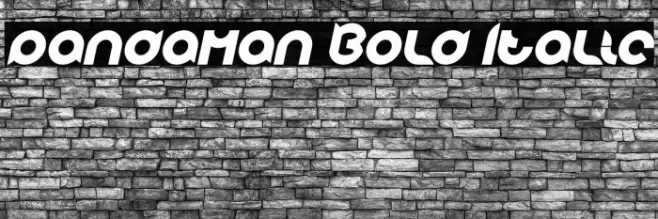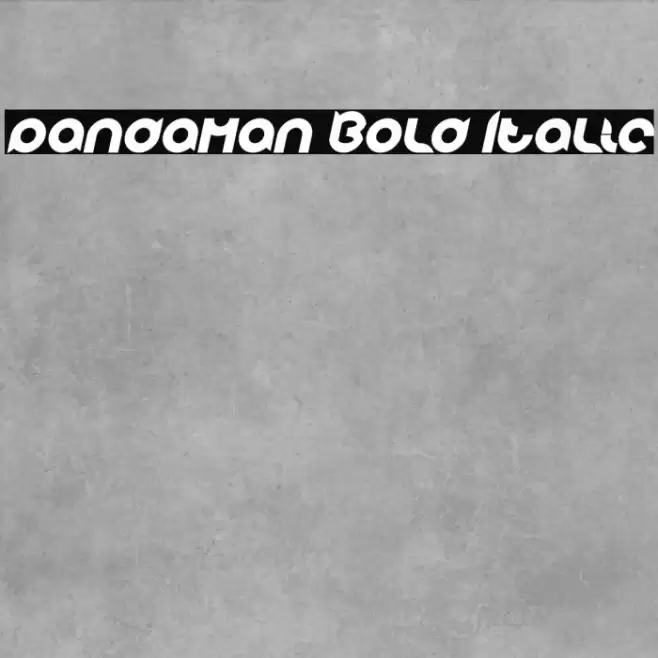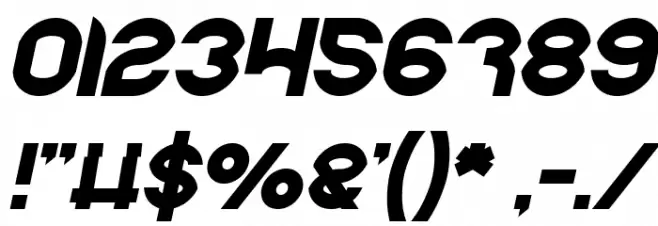
pandaman Bold Italic Font
pandaman Bold Italic Description
This font features a bold and italic style with a modern, dynamic appearance. The characters are slightly slanted, adding a sense of motion and energy. The strokes are thick and consistent, providing a strong visual impact. The design includes unique, rounded edges and a playful, futuristic aesthetic. The uppercase and lowercase letters maintain a cohesive look, while the numbers and special characters complement the overall style. This font is ideal for projects that require a bold statement and a contemporary feel.
A bold, italic font with a modern, dynamic style and thick strokes from Uncategorized fonts.